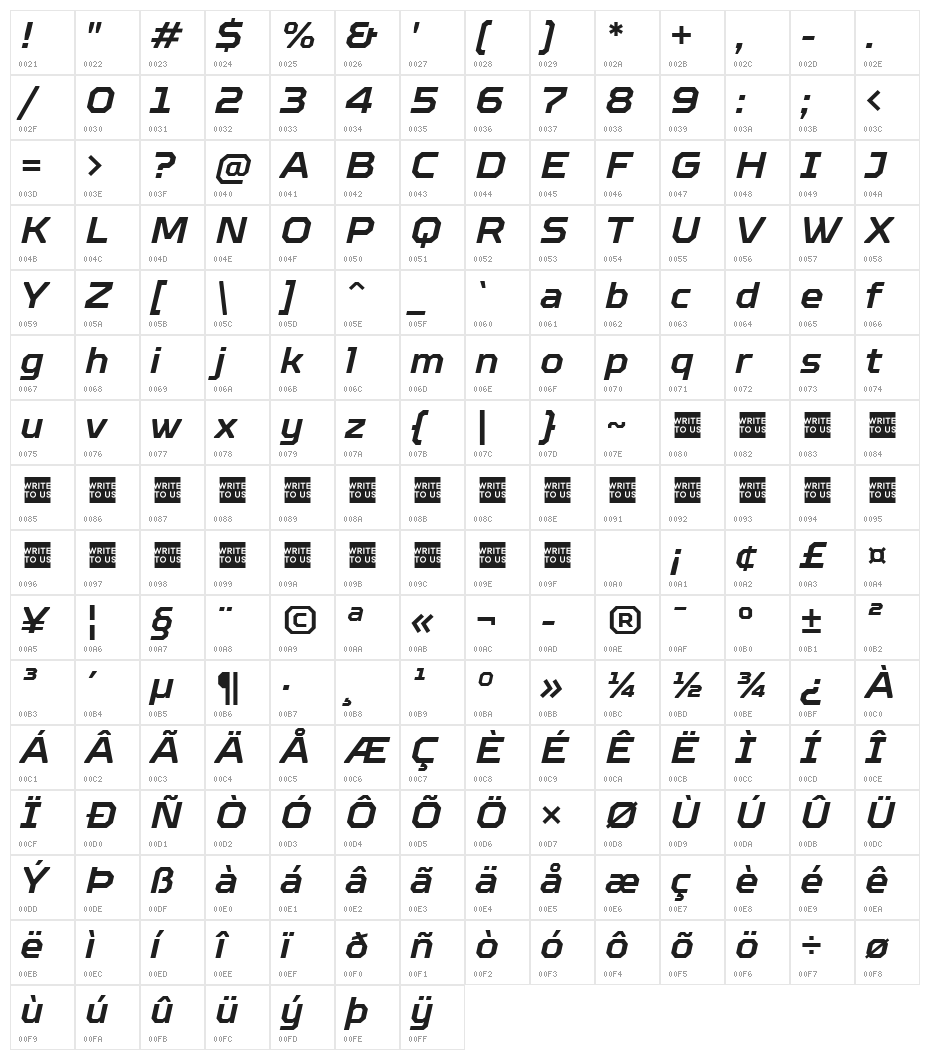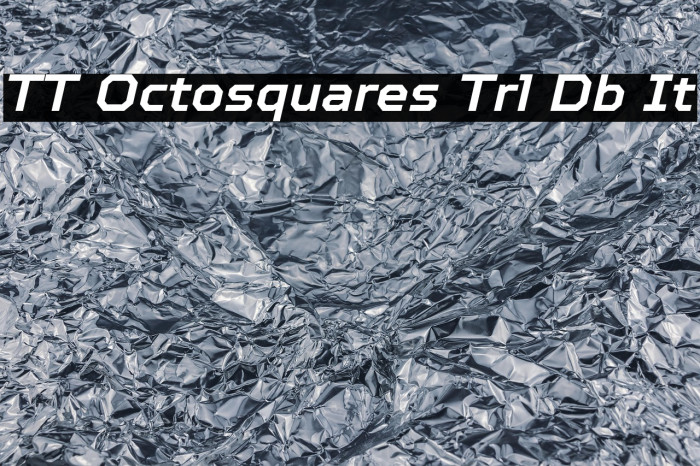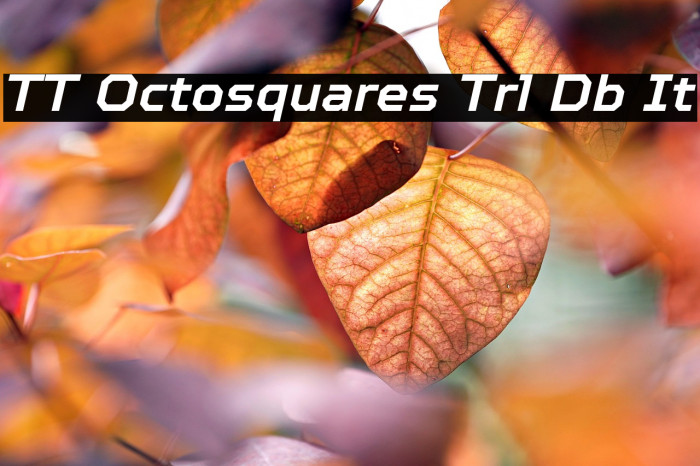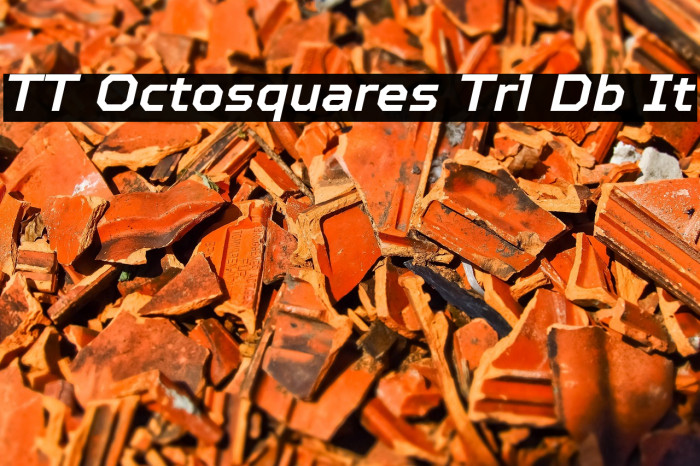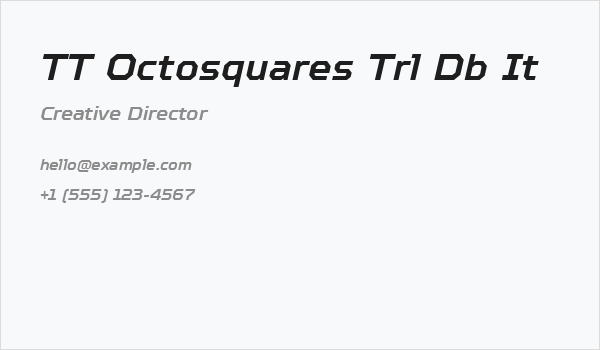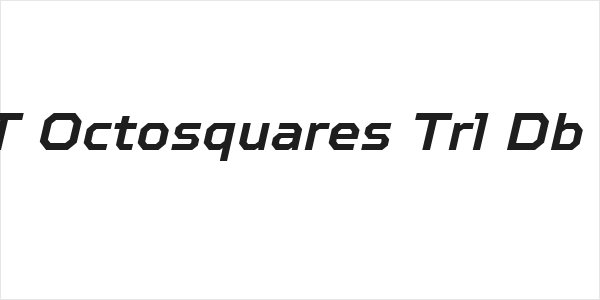
TT Octosquares Trl Db It Font
TT Octosquares Trl Db It Description
This font showcases a modern and dynamic style with a geometric and angular design. The characters are slightly italicized, giving a sense of motion and energy. The uppercase and lowercase letters maintain a consistent structure, with sharp edges and a uniform stroke width. The numerals and special characters follow the same aesthetic, ensuring a cohesive look across all glyphs. The font's unique style makes it stand out, suitable for projects that require a contemporary and bold appearance.
| Proposed Projects | Ideal for branding, sports team logos, tech-related designs, and dynamic posters. |